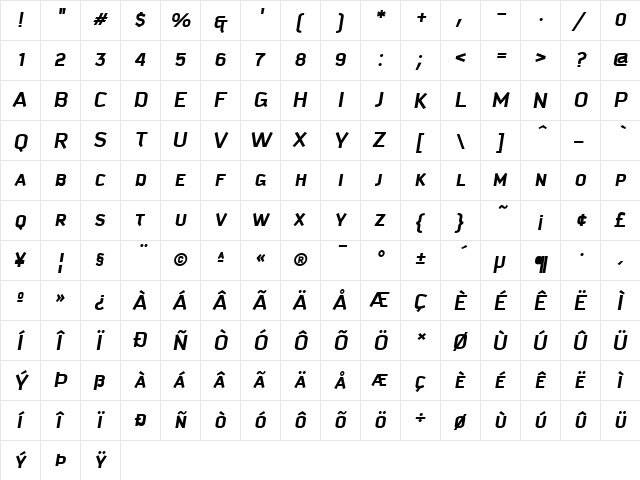
Kautiva Caps Bold Italic
Design Context for Kautiva Caps Typeface
Kautiva Caps takes a measured approach to typography — its balanced proportions and neutral character make it a reliable workhorse for both digital and print work. Its italic angle brings a sense of urgency and motion to the letterforms. The heavy weight commands attention and anchors typographic hierarchies.
Pro Tip: Use Kautiva Caps for emphasis, pull quotes, and subheadings where its slanted energy can add rhythm to the layout.